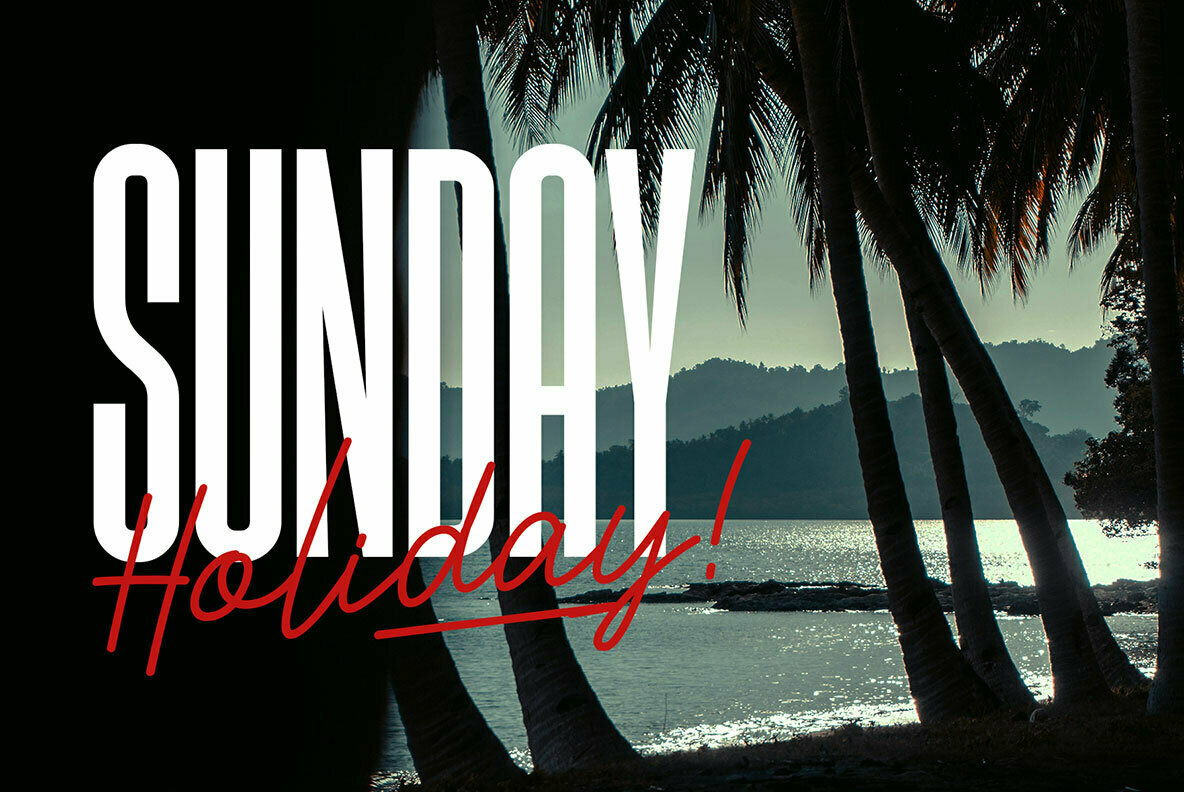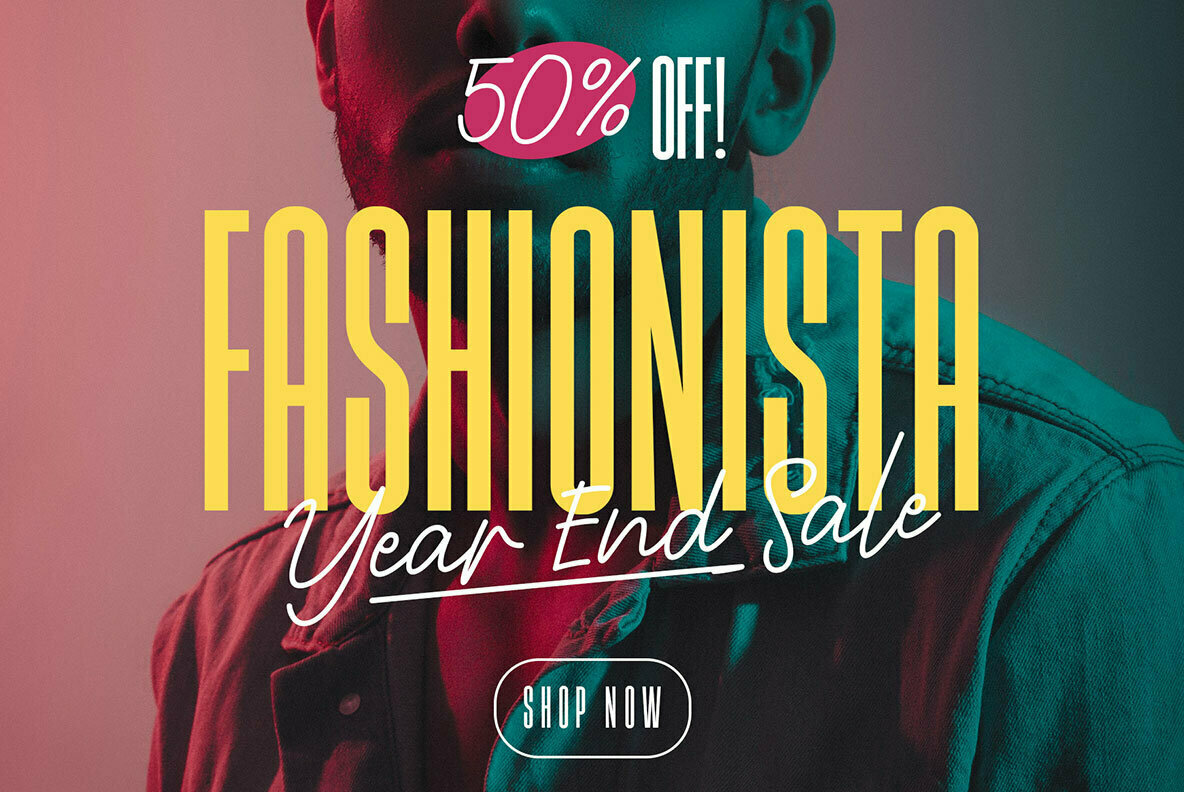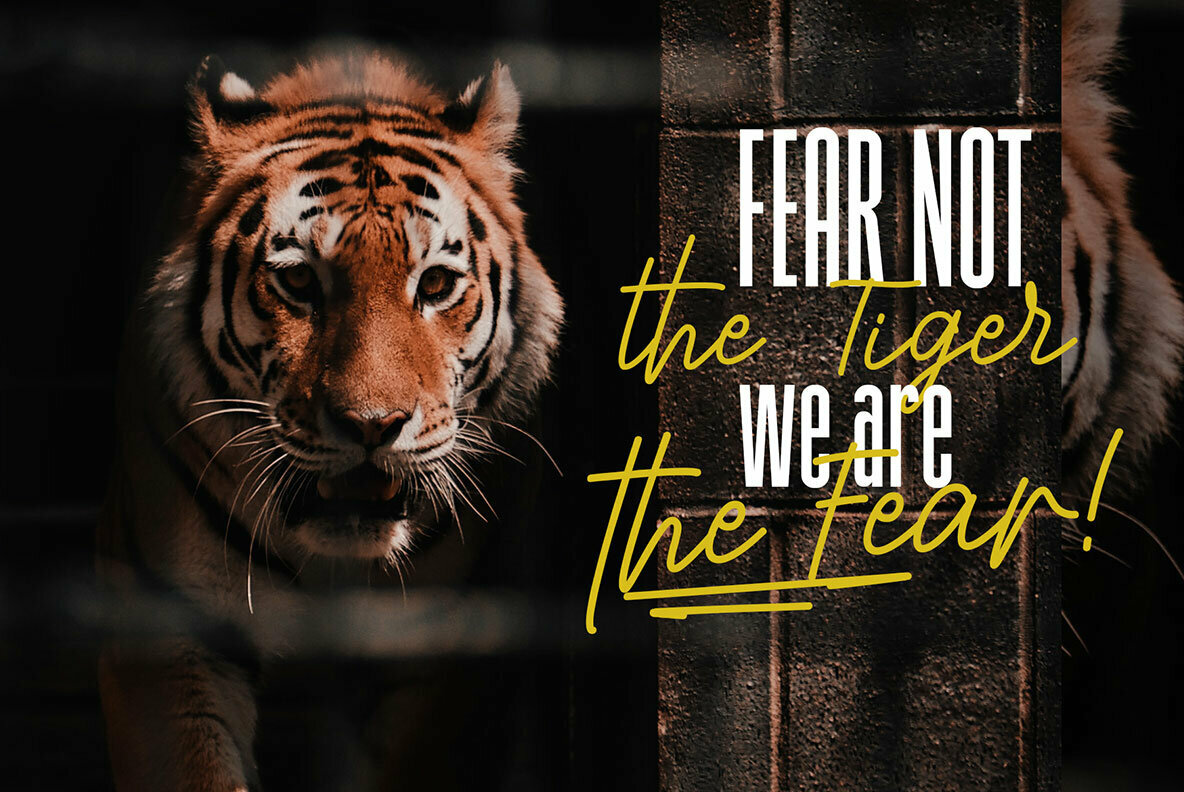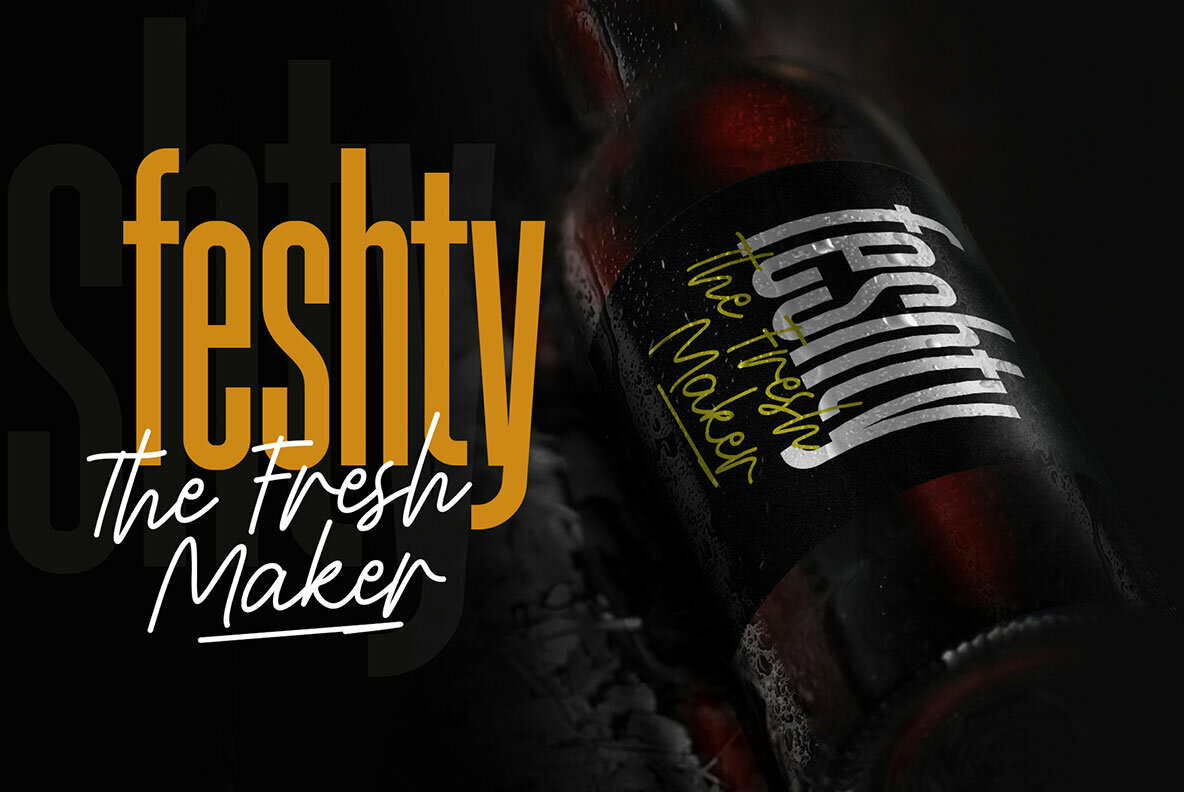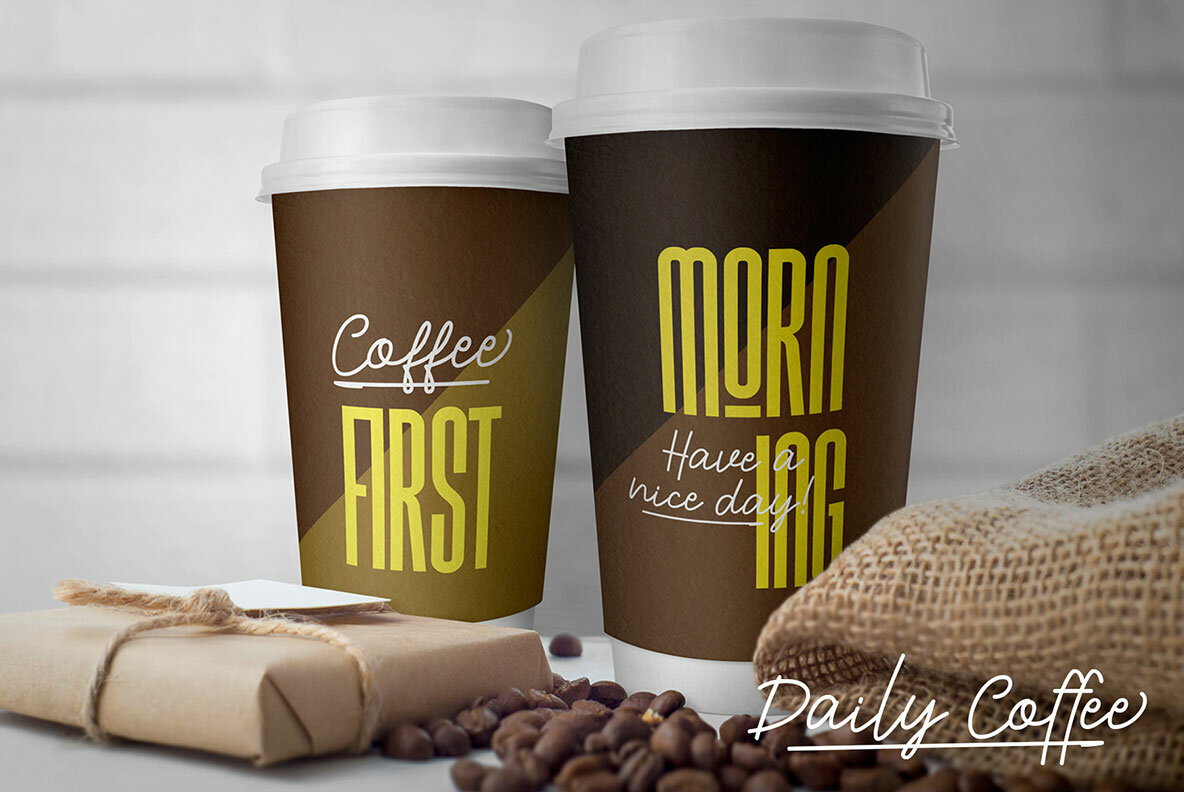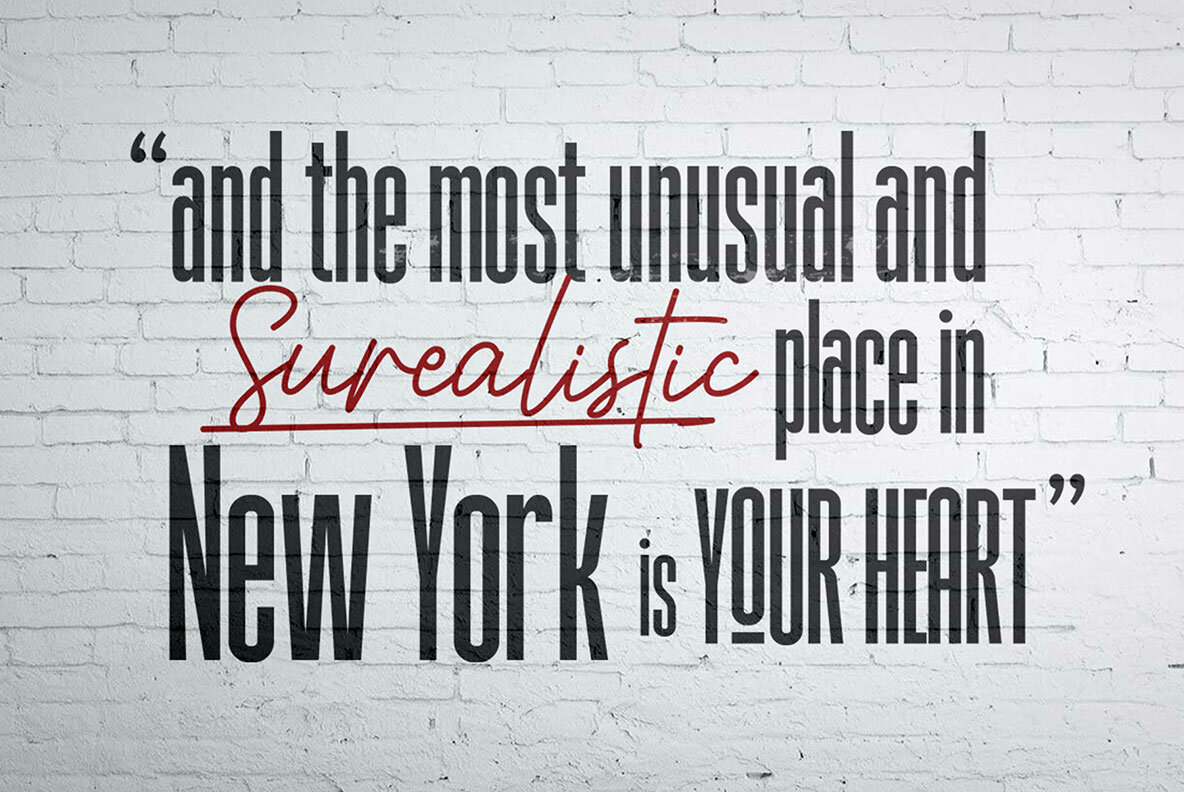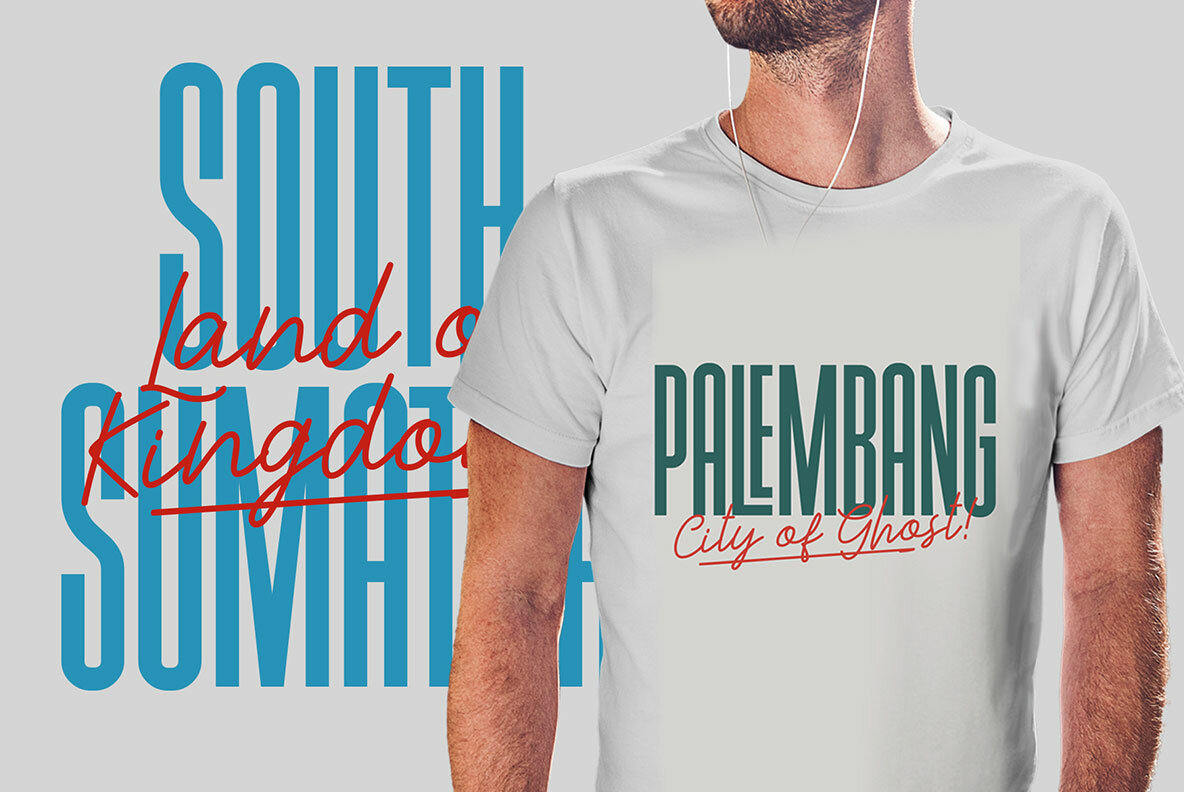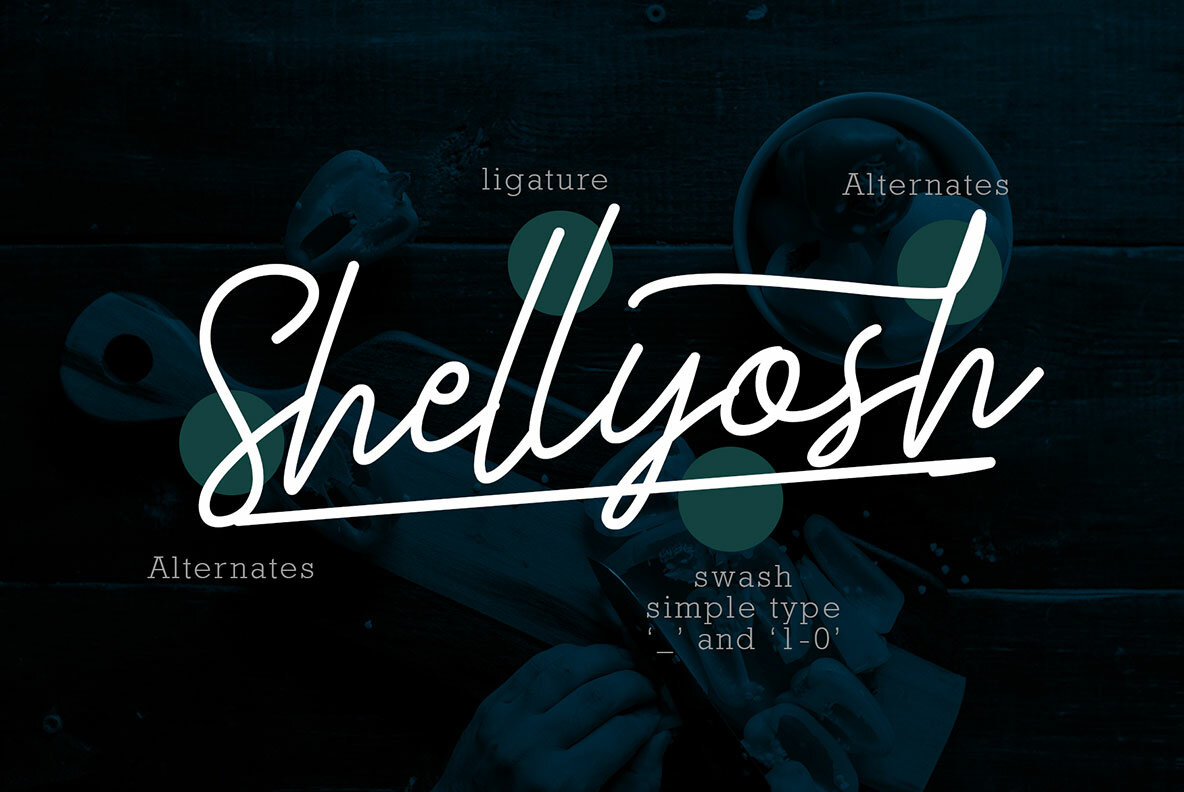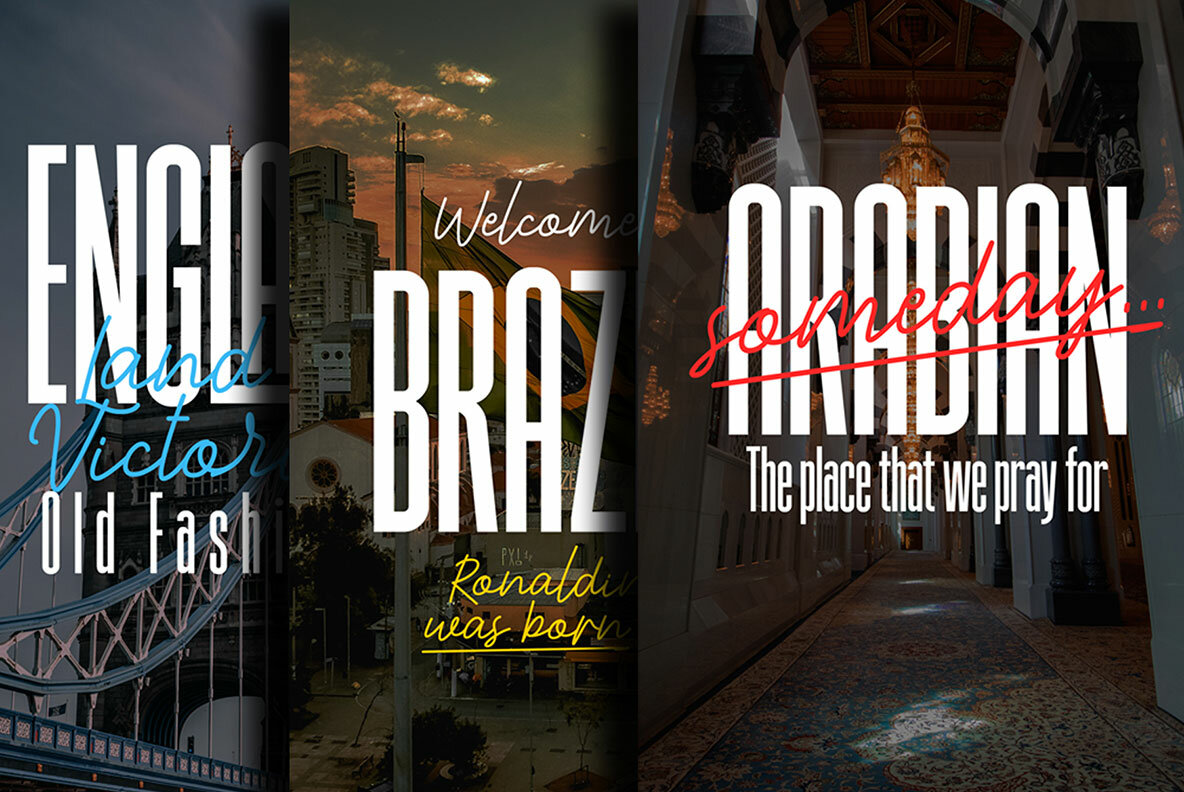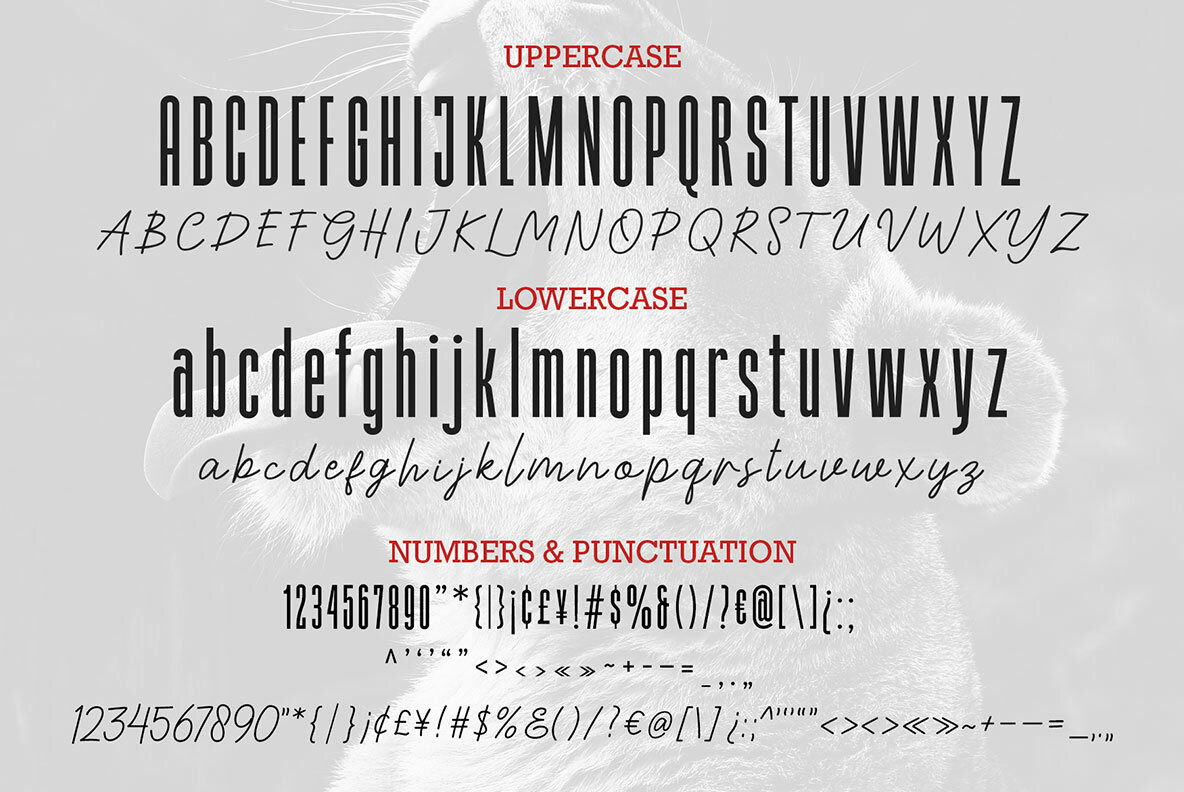
Highrush Font Duo
Highrush Font Duo offers a sophisticated fusion of condensed and handwriting styles, elevating your design projects with a touch of elegance. This font pair is ideal for various applications, including headlines, magazines, quotes, posters, merchandise, apparel, social media posts, and storefronts. Highrush is meticulously crafted with consistent, tight spacing, particularly in its condensed variant, providing a sleek and coherent aesthetic. These fonts boast a striking contrast, allowing flexible usage where one might serve as the primary text and the other as secondary, effectively complementing each other. Unique ligatures enhance the individuality of your projects, while custom swashes in the handwriting style can be accessed by typing an underscore followed by numbers 1 to 0.Highrush Font Duo: A Harmonious Blend of Styles